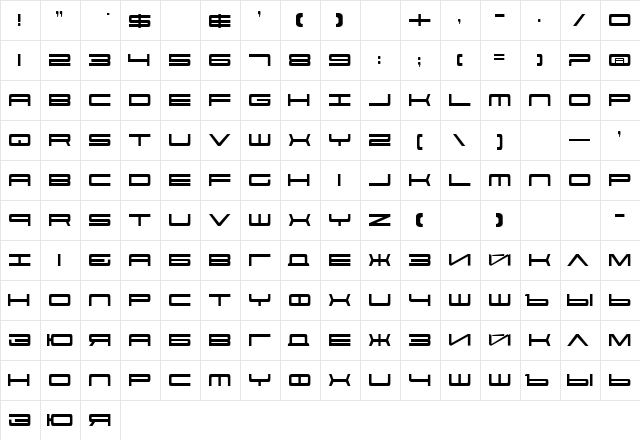
ft33 Regular Font Preview
ft33 Regular
ft33 Regular Font Details
Design Context for ft33 Typeface
ft33 offers clean, dependable letterforms without strong stylistic allegiance, making it a practical choice for designers who need flexibility.